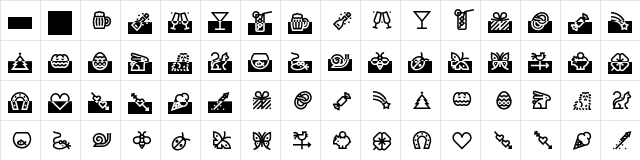
BixBats LT Std Funny Regular
| Foundry | Linotype Library GmbH |
| Designer | Victor Garcia |
Design Context for BixBats LT Std Funny Typeface
BixBats LT Std Funny has an approachable, lighthearted character — its loose, expressive forms are well-suited to children's content, casual branding, and fun-first design.
Well-suited to food and beverage brands with personality, educational materials, and fun-forward identities.
Font Pairing: Pairs well with a rounded or humanist sans for body copy, maintaining the friendly tone without relying on BixBats LT Std Funny to carry extended reading.
Pro Tip: Use BixBats LT Std Funny at larger display sizes where its expressive character can land. Pair with a clean, simple sans for body copy to maintain readability.